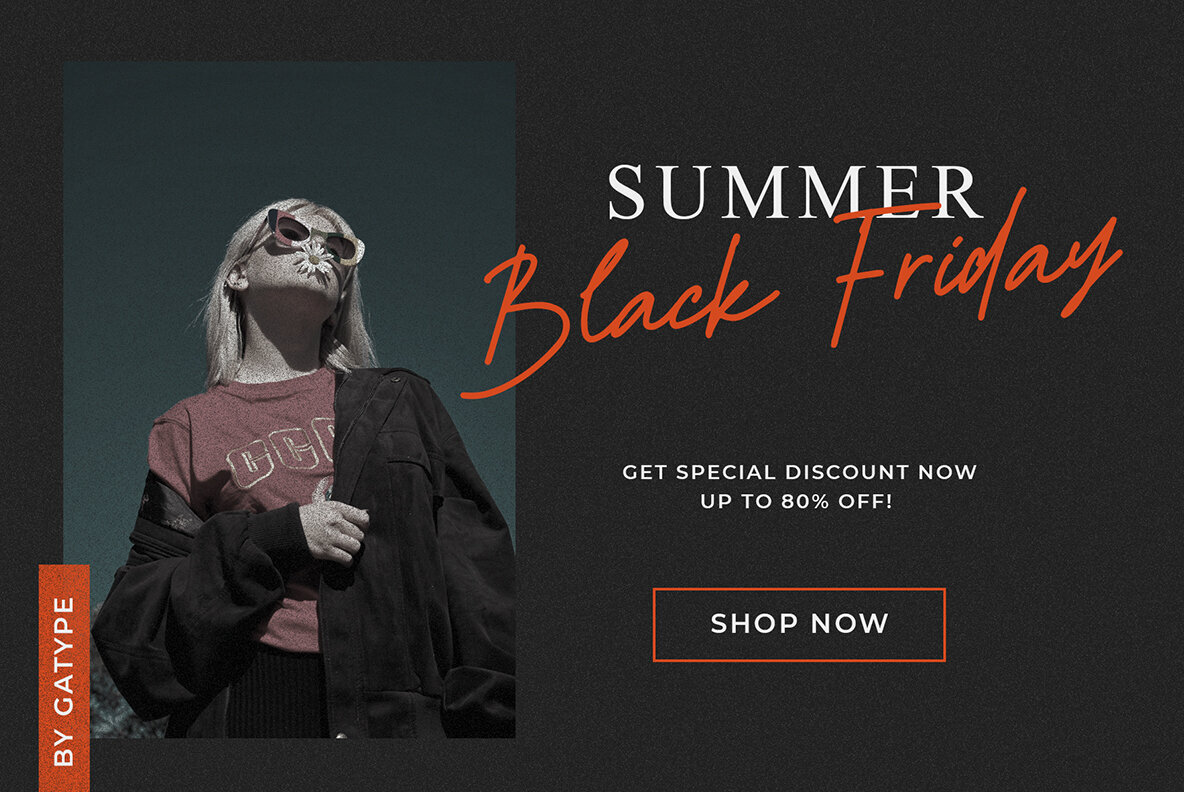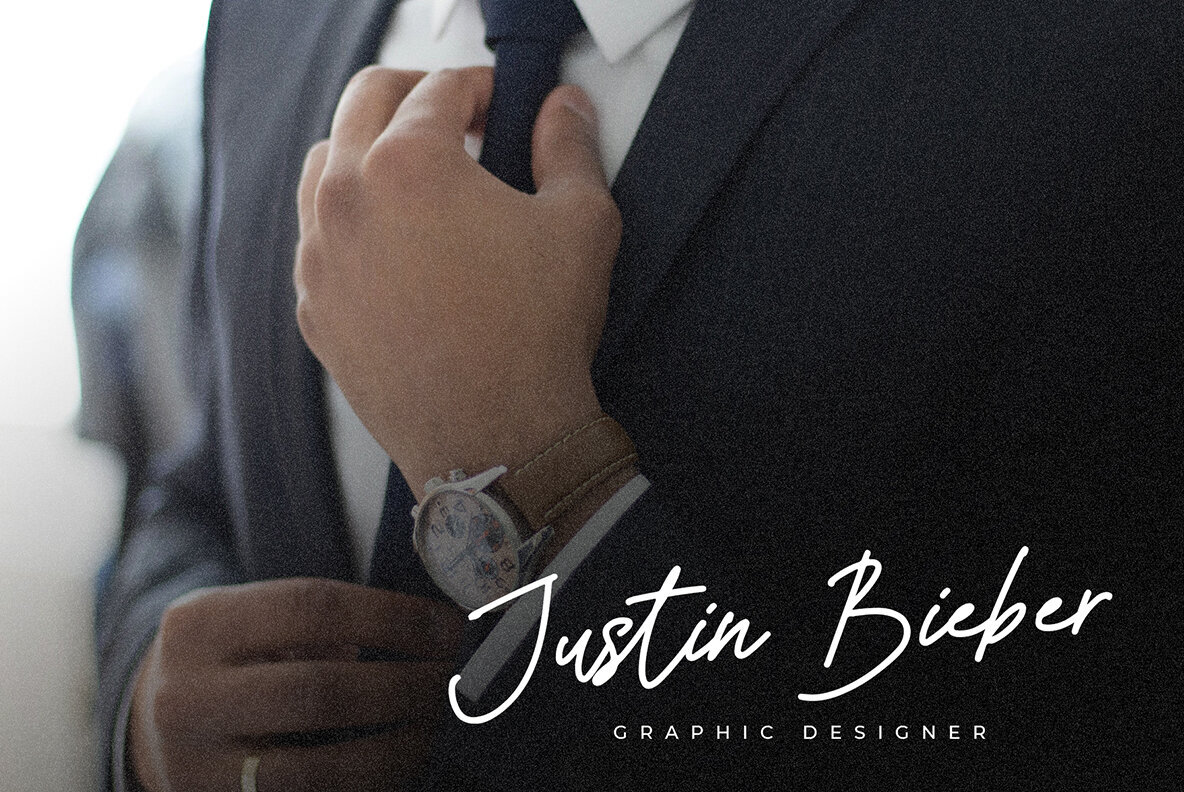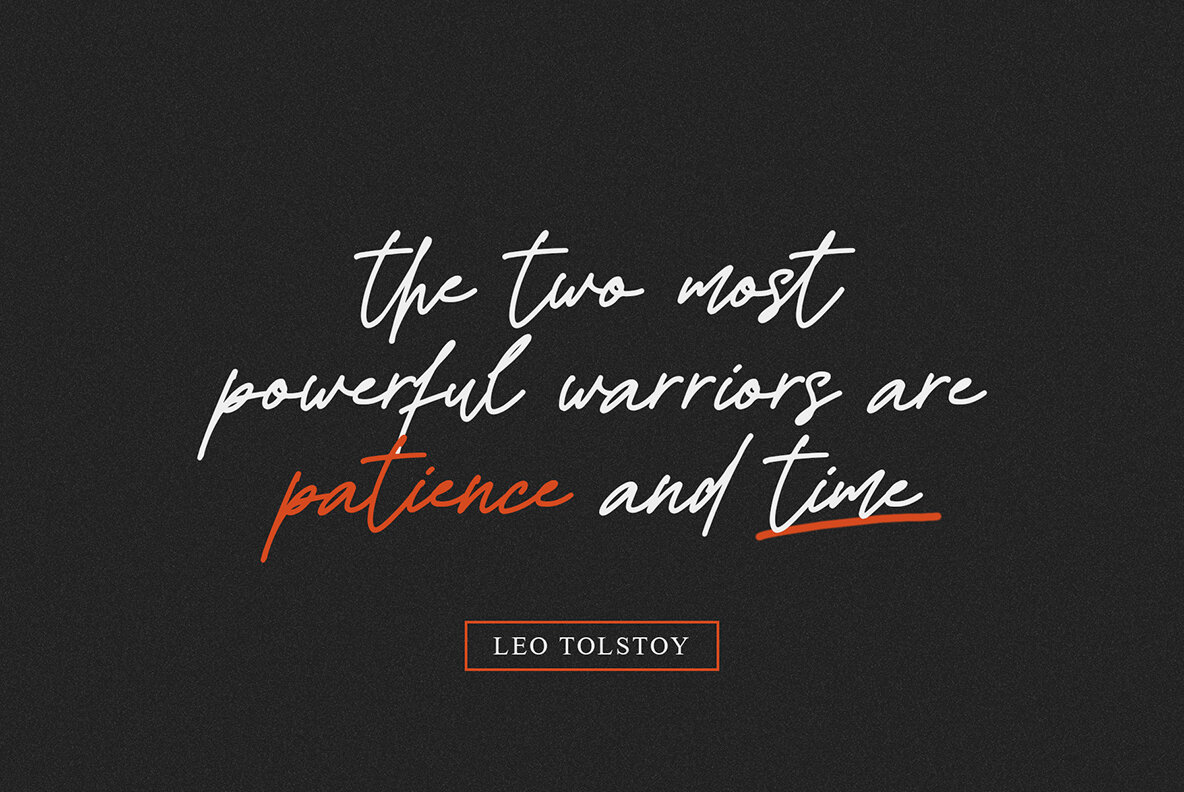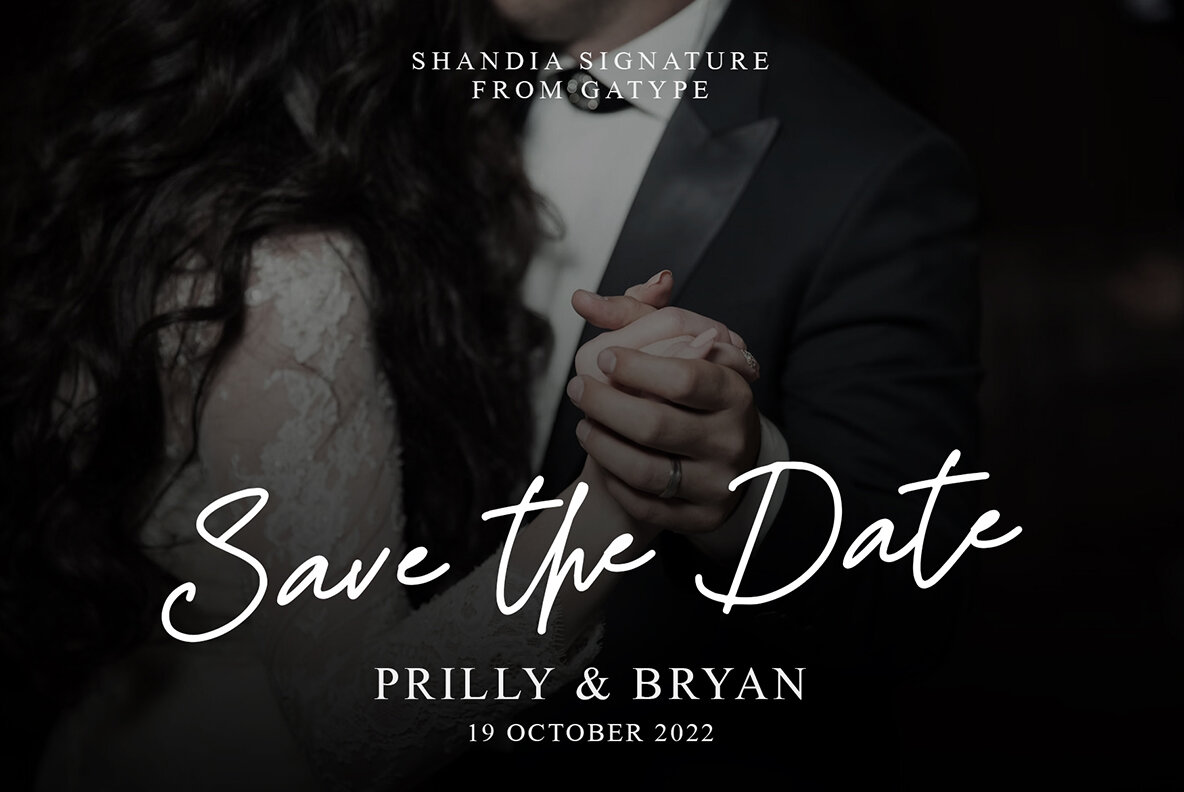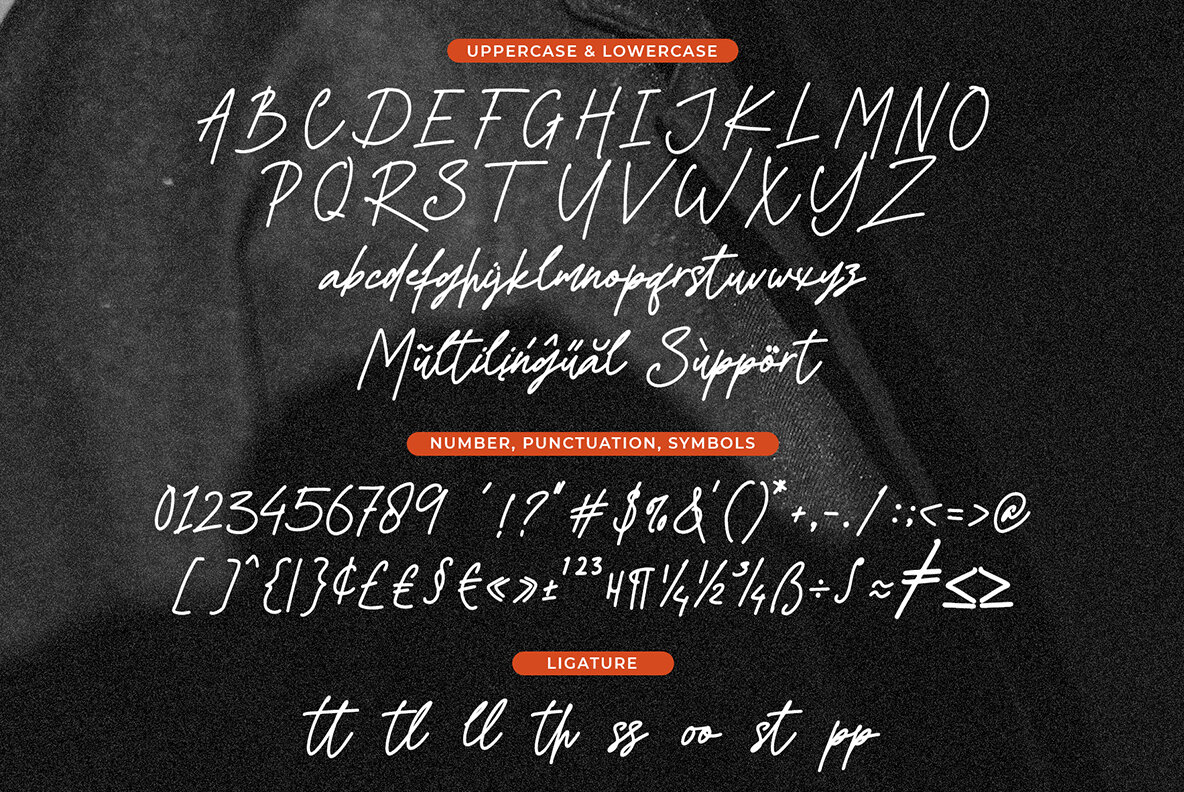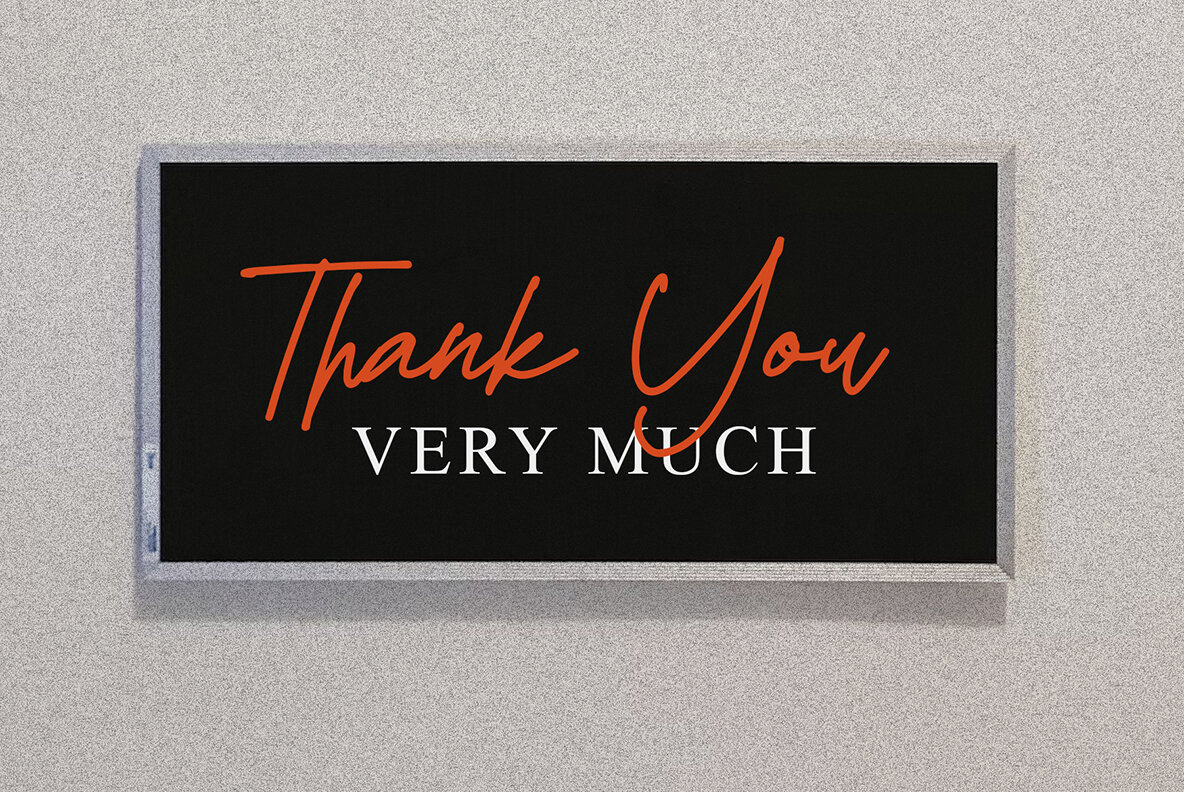
Shandia Signature Font
Shandia Signature
Shandia Signature, inspired by timeless classic calligraphy, is an elegant script font that offers a contemporary feel with impeccable shapes. Balancing between thin and thick strokes, it enhances the beauty of any project. Shandia Signature is perfect for a variety of design purposes, including: To unlock the full potential of Shandia Signature, use software that supports OpenType features, such as Adobe Illustrator CS, Adobe InDesign, CorelDraw X6-X7, or Microsoft Word 2010 and later versions.Shandia Signature: Elegant Script Font With Classic Charm
Versatile Usability